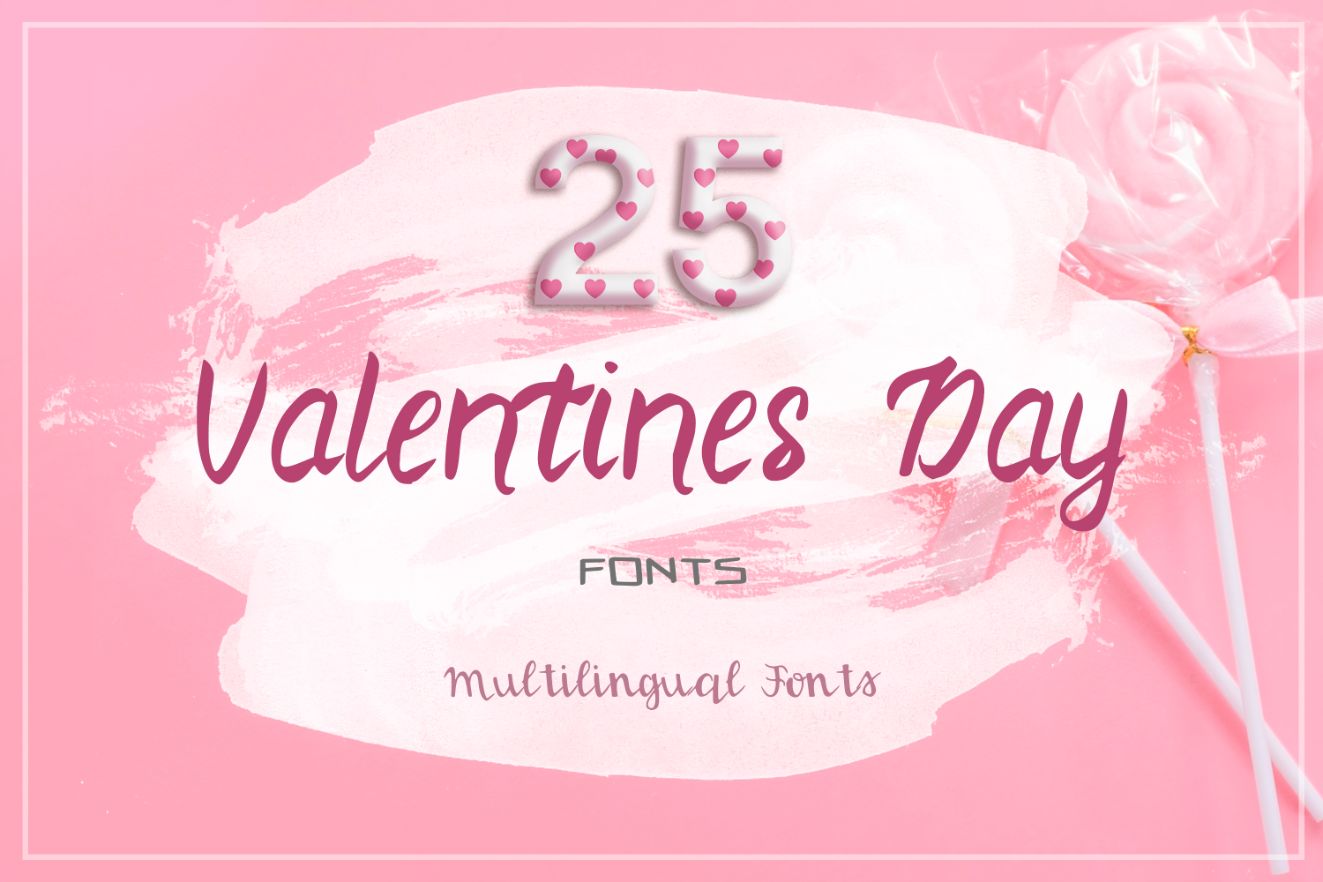
Love Is In The Air With These Valentines Fonts!
Aaaah, it’s Valentine’s season! The time to swap out winter decor for pinks and reds. We couldn’t wait anymore to present you our latest collection of 25 Valentines Day Fonts!
These 25 Valentines fonts are charming and sweet! They are perfect for casual type in greeting cards, illustrations, quotes, quaint branding, book covers, children’s books, packaging and so much more.
Highlights For These Valentines Day Fonts:
• There are 25 Valentines fonts included in this bundle.
• All fonts have multilingual support. The languages supported – English, German, Danish, Finnish, Spanish.
25 Valentines Day Fonts Included In This Bundle:
• Crazy Heart
• Cutie Pie
• Eye Candy
• Flirty
• Golden Curls
• Happy Valentine
• Heart Throb
• Honey Angel
• Hug Day
• Huggsy
• Love Bug
• Love Bunny
• Loving Tone
• Pants on Fire
• Pinky Amore
• Romantic Arrow
• Romantic Light
• Rosy Cheeks
• Starry Eyed
• Sugar Lips
• Sweetheart
• Violet Rose
• Winky Poo
• Love Machine
• Lovely Cupid
Ready For A Visual Tour?
Crazy Heart Font
Crazy Heart
Valentine's Day Fonts
Cutie Pie Font
cutie pie Valentine's Day Fonts
Valentine's Day Fonts
Eye Candy Font
Valentine's Day Fonts
Flirty Font
Valentine's Day Fonts
Romantic Arrow Font
Valentine's Day Fonts
Happy Valentine
Valentine's Day Fonts
Sugar Lips Font
Romantic Arrow Font
Valentine's Day Fonts
Love Bug Fonts
Valentine's Day Fonts
Heart Throb Font
Valentine's Day Fonts
Love Bunny Font
Valentine's Day Fonts
Golden Curls Font
Winky Poo Font
Winky Poo font
Pants on Fire Font
Pants on Fire font
Rosy Cheeks Font
Rosy Cheeks
Lovely Cupid Font
Pinky Amore Font
Pinky Amore Font preview
Pinky Amore Font
Violet Rose Font
Honey Angel
Loving Tone Font
Sweetheart Font
Huggsy Font
Love Machine Font
Romantic Light Font
Hug Day Font
Starry Eyed Font